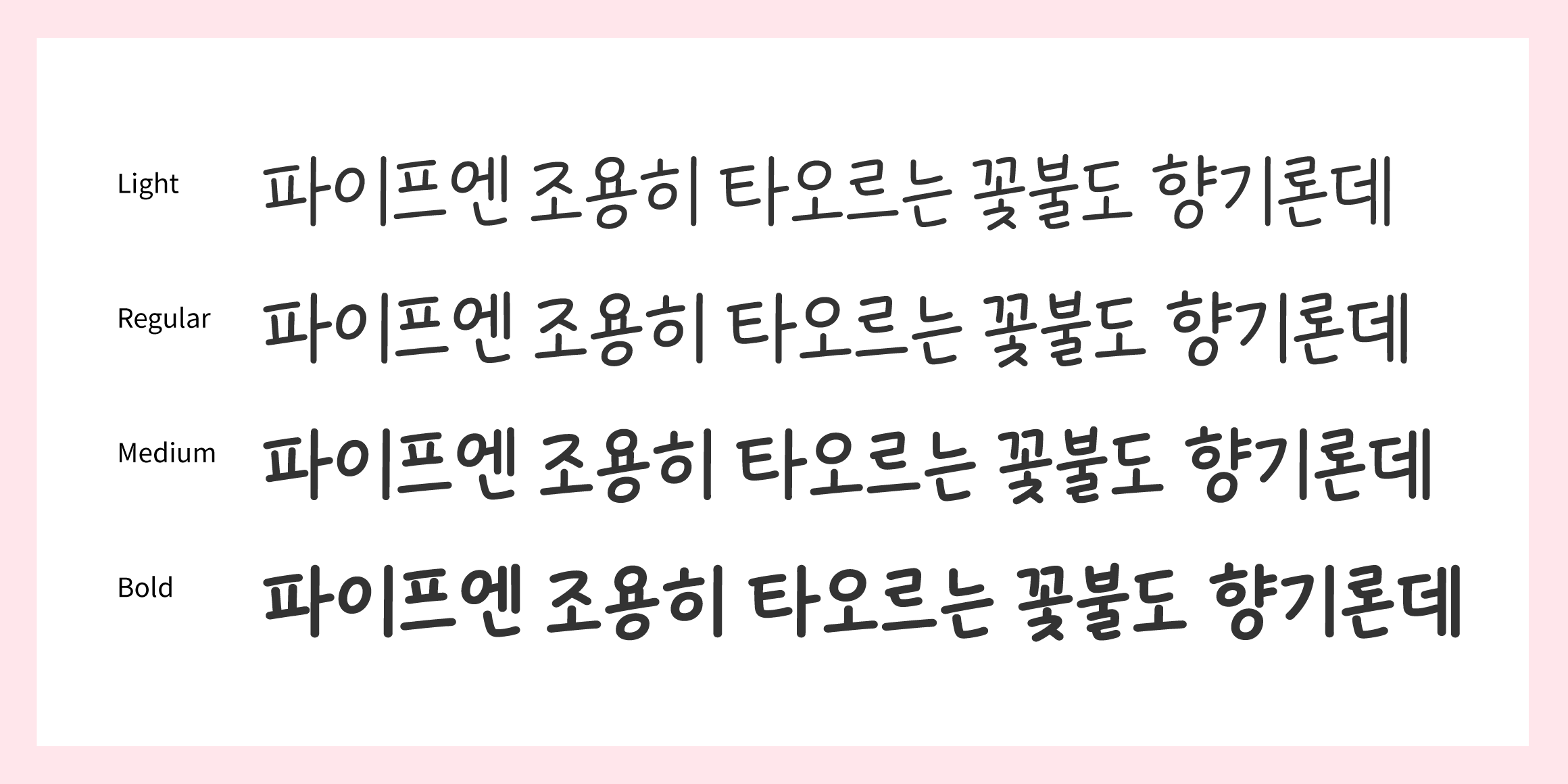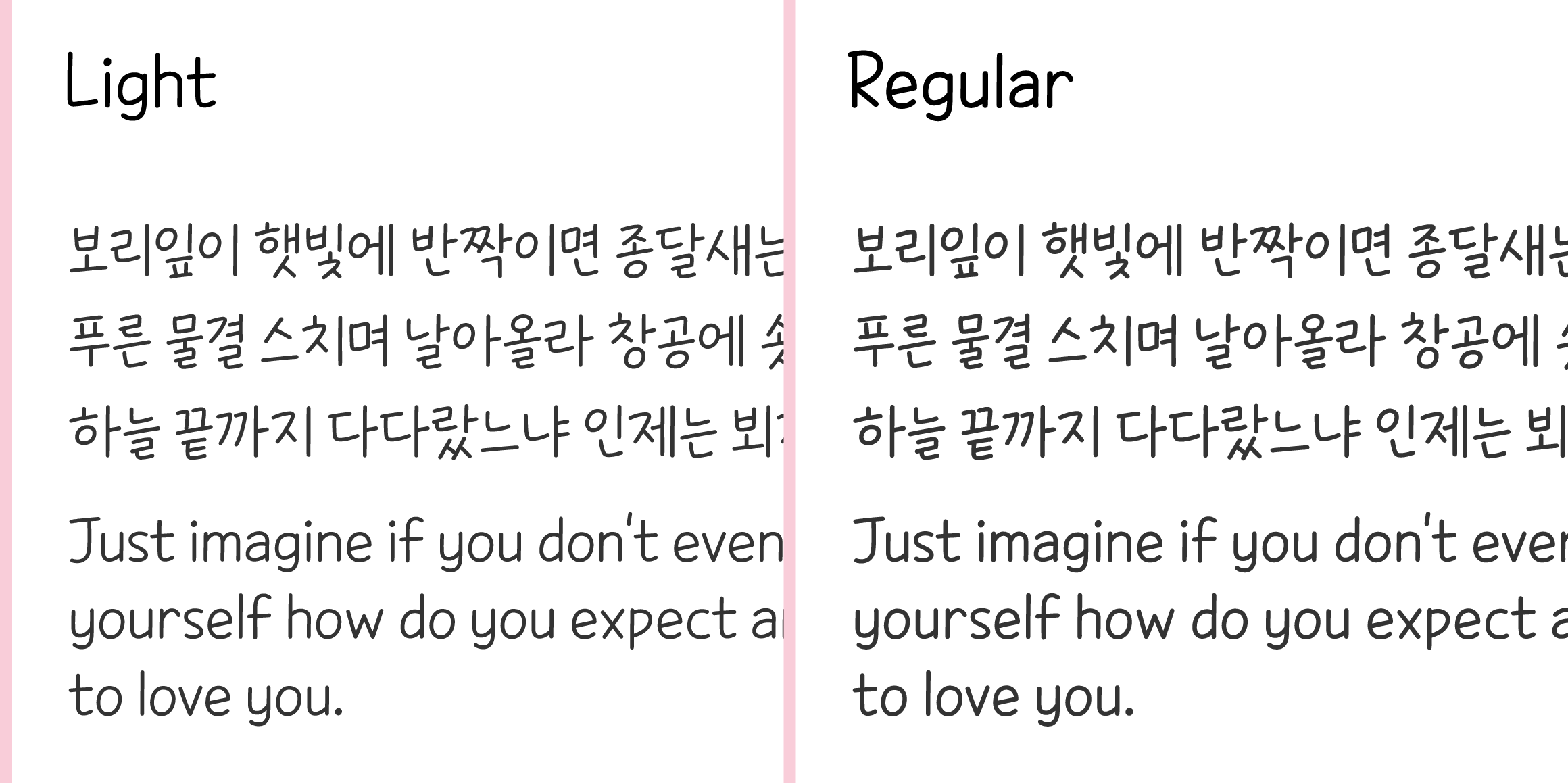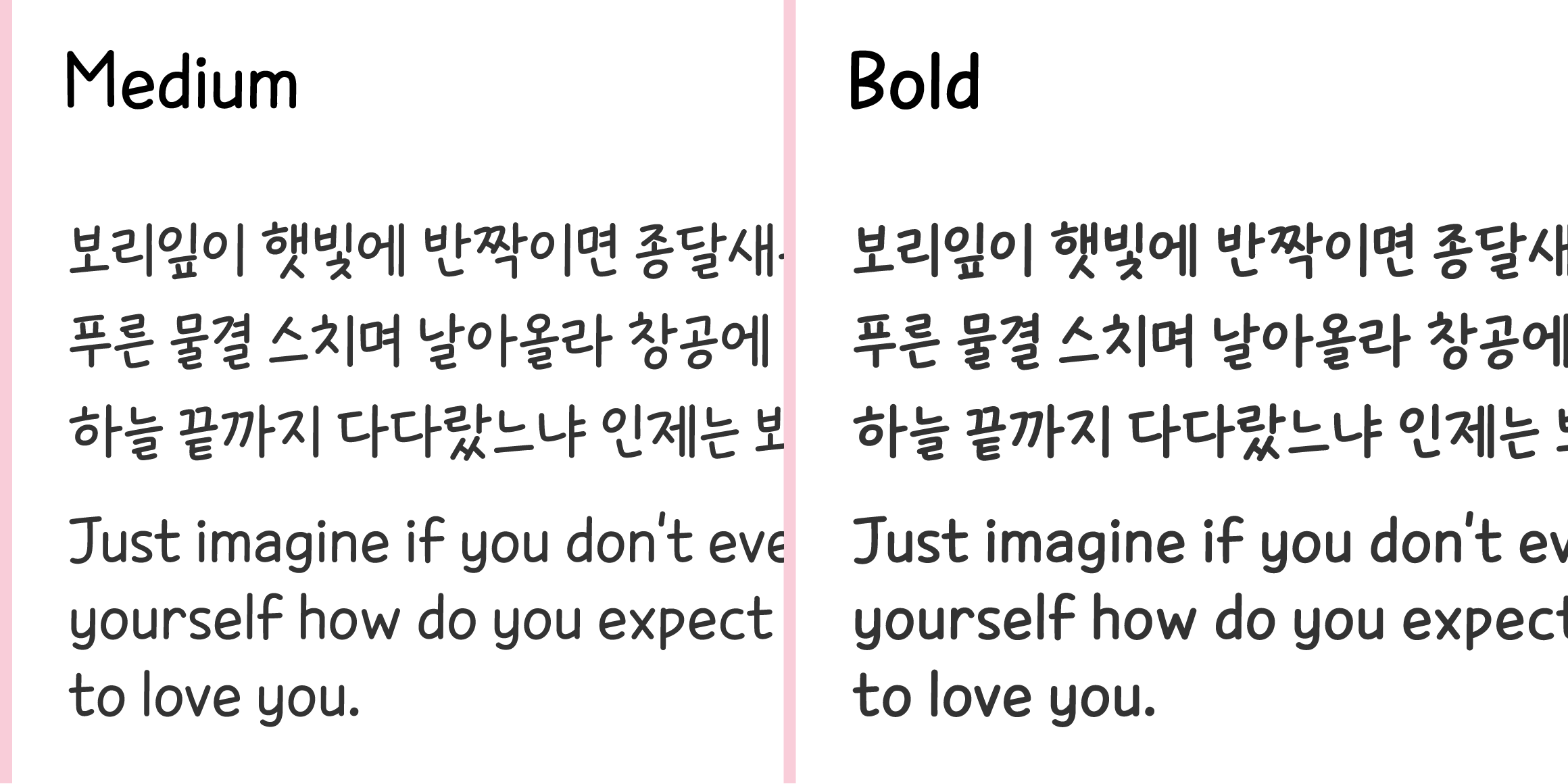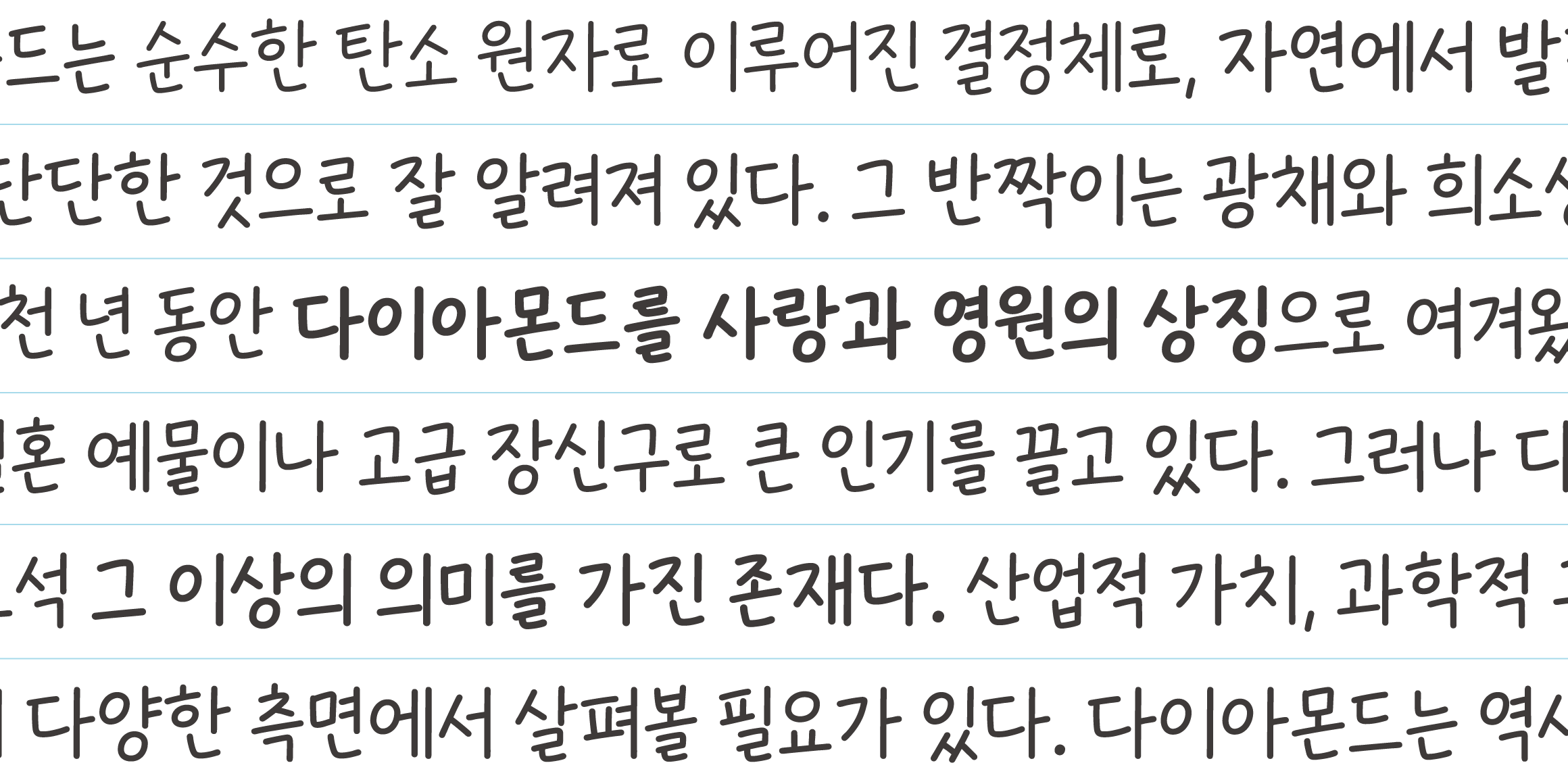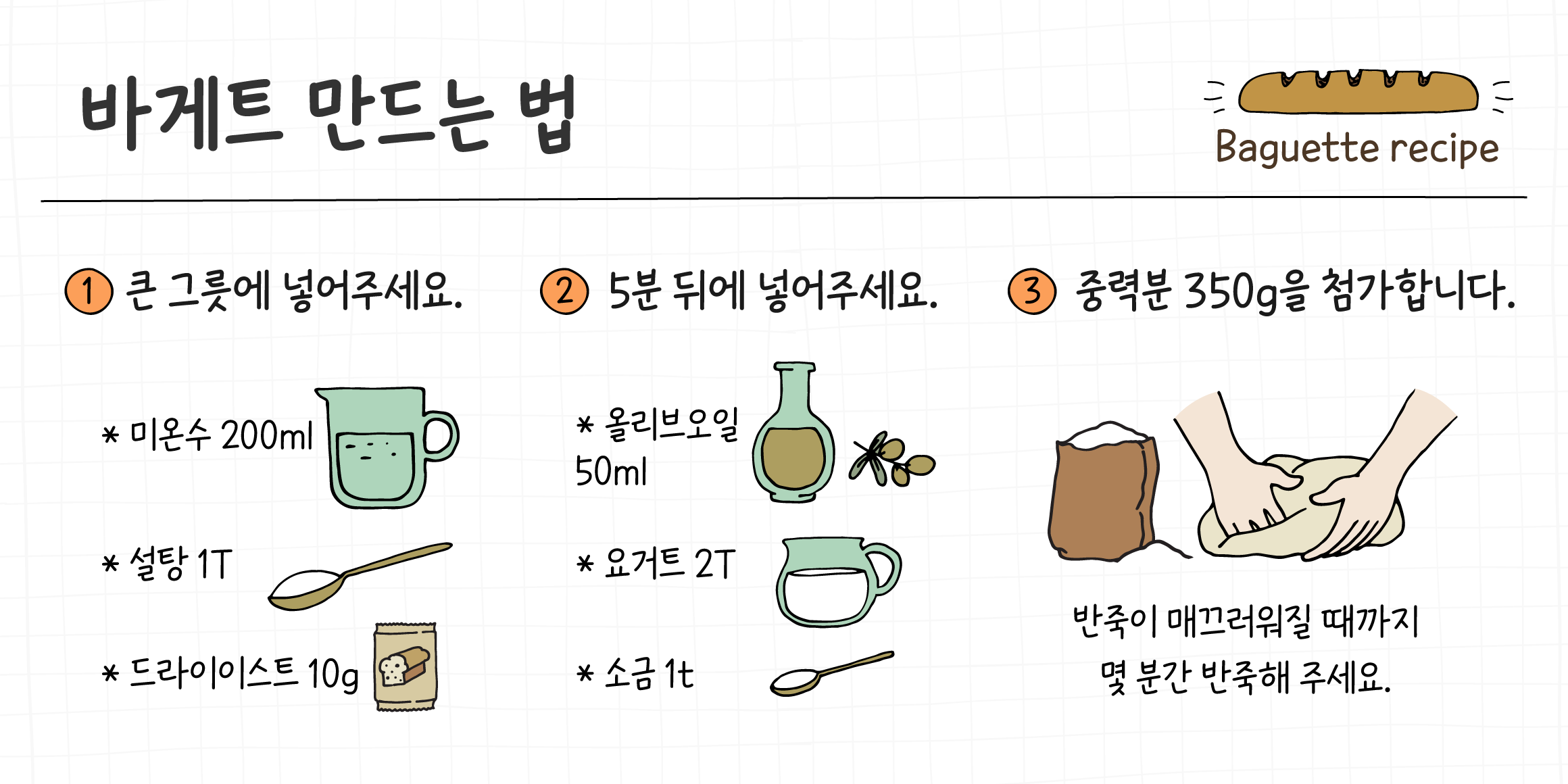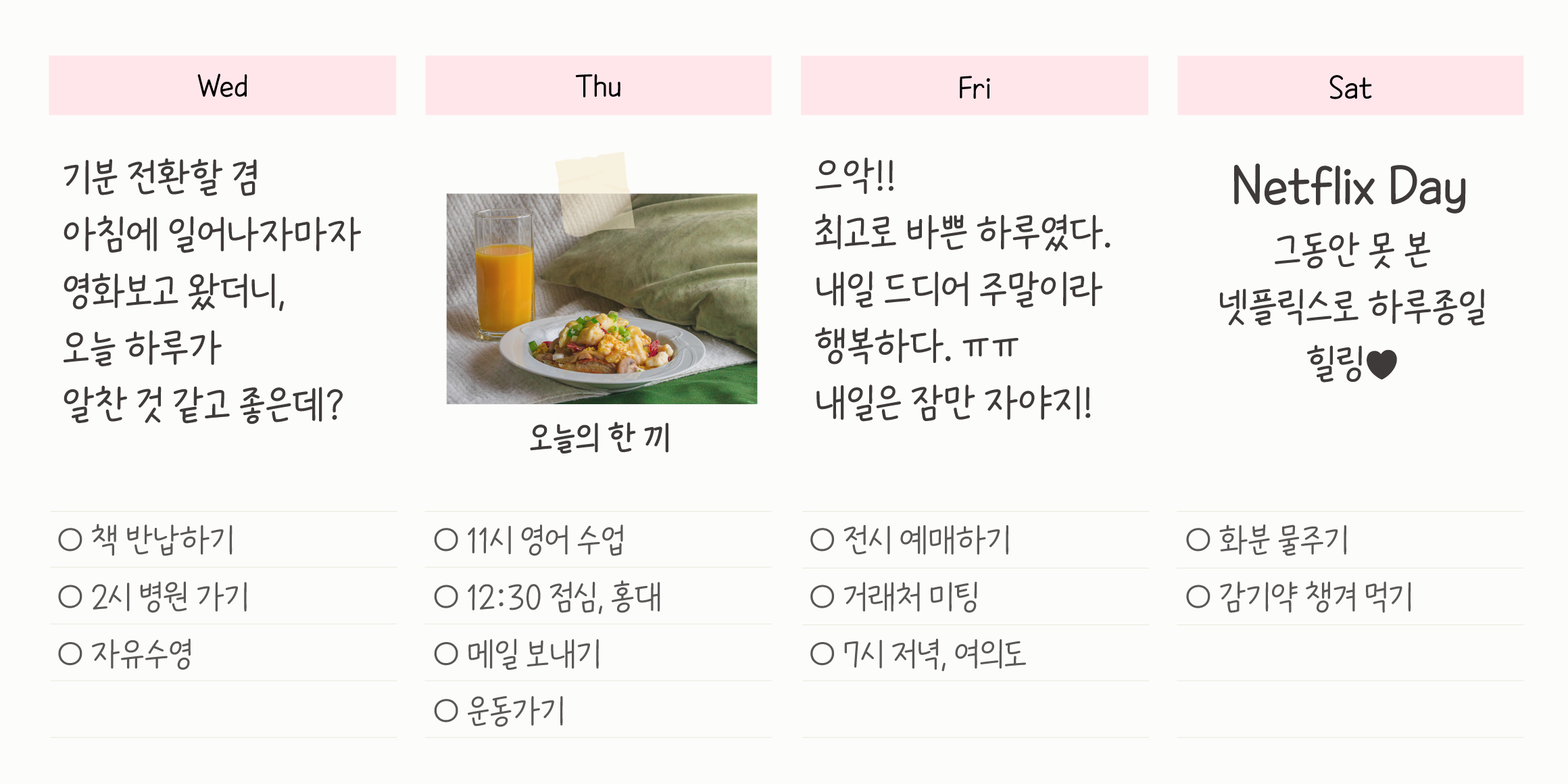
AndAnnualScript
Andfont
‘AndAnnualScript’ features evenly spaced lines that naturally guide the reader’s eye and offer excellent readability even in long passages. Each stroke bears a gentle, organic curve, imparting the warm charm of handwriting within its refined, orderly structure.